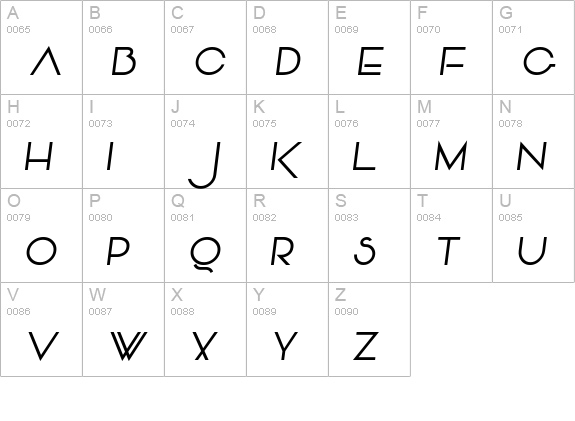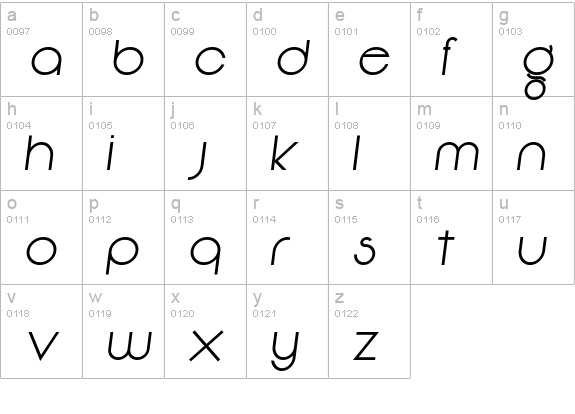
Vonique 92 Italic is a distinctive, italic variant in the Vonique typeface family \xE2\x80\x94 well suited to design and typography projects.
Vonique 92 Italic is a stunning font that effortlessly combines elegance and modernity. Its sleek and sophisticated curves give any design a touch of class, making it perfect for a wide range of creative projects. With its italicized form, Vonique 92 adds a sense of movement and dynamism to your typography, making it ideal for adding emphasis or creating eye-catching headlines. This font is not only visually captivating, but it also offers a sense of versatility. Whether you're designing a logo, a website, or a print advertisement, Vonique 92 Italic adapts seamlessly to any context, enhancing the overall aesthetic appeal of your work. What makes Vonique 92 Italic even more appealing is that it is freely available to download at FontsMarket.com. This means that you can easily access this exceptional font without any cost or limitations. With its high-quality design and free availability, Vonique 92 Italic is a must-have for any designer or creative professional looking to add a touch of sophistication to their projects. So, don't miss out on the opportunity to elevate your designs with Vonique 92 Italic. Download it for free today at FontsMarket.com and experience the beauty and versatility that this font has to offer.